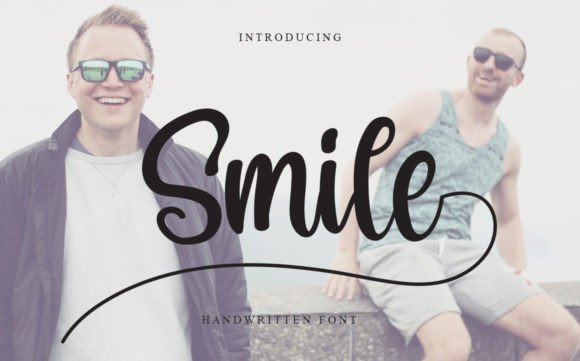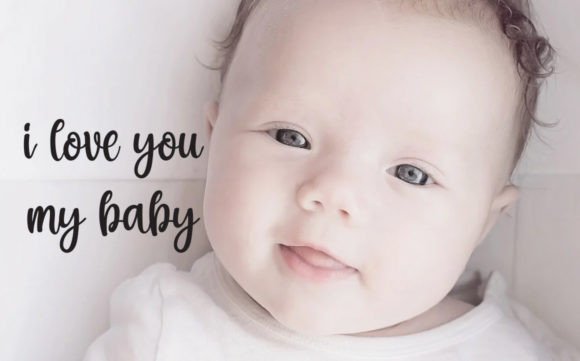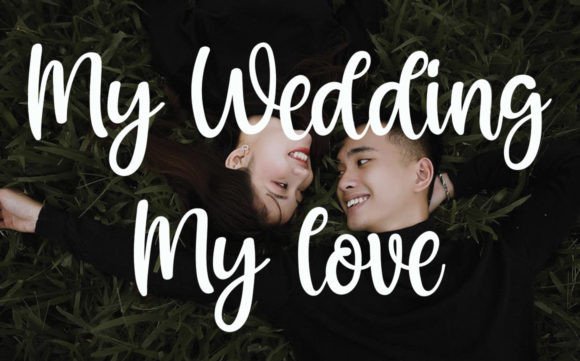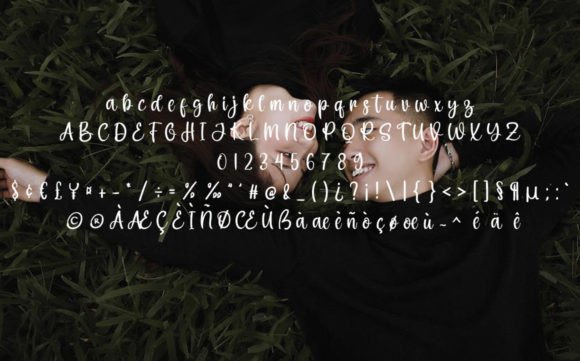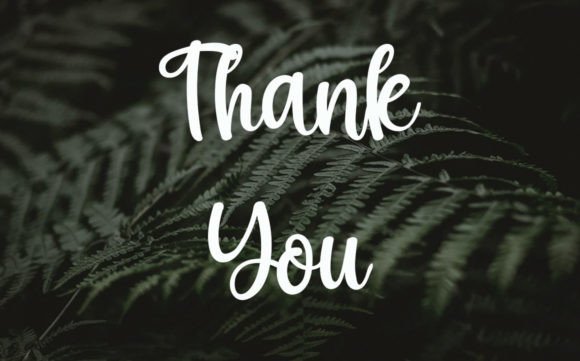
Smile Font
About Smile Font
“Smile” is an enchanting handwritten font that adds a touch of romance and charm to your design projects. This versatile font is well-suited for a wide range of applications, from greeting cards to headlines, and it is guaranteed to infuse a romantic feel into your next project.
The standout qualities of “Smile” include its enchanting and romantic nature. Its handwritten style imparts a sense of warmth and authenticity, making it an excellent choice for projects that aim to convey a heartfelt and romantic sentiment.
Imagine using “Smile” to create eye-catching greeting cards that spread joy and love. Visualize incorporating this font into headlines and titles, especially for projects where a romantic and enchanting feel is desired. “Smile” can also be a valuable asset for crafting wedding invitations, love letters, or any creative endeavor that seeks to evoke a sense of romance and charm.
In conclusion, “Smile” is not just a font; it’s a design resource that infuses enchantment and romance into your creative work. Its handwritten style makes it versatile for various design applications where a romantic and heartfelt tone is needed. Embrace “Smile” as a font that enhances your designs and adds a touch of magic and romance to your projects, creating an enchanting atmosphere that captures the heart.